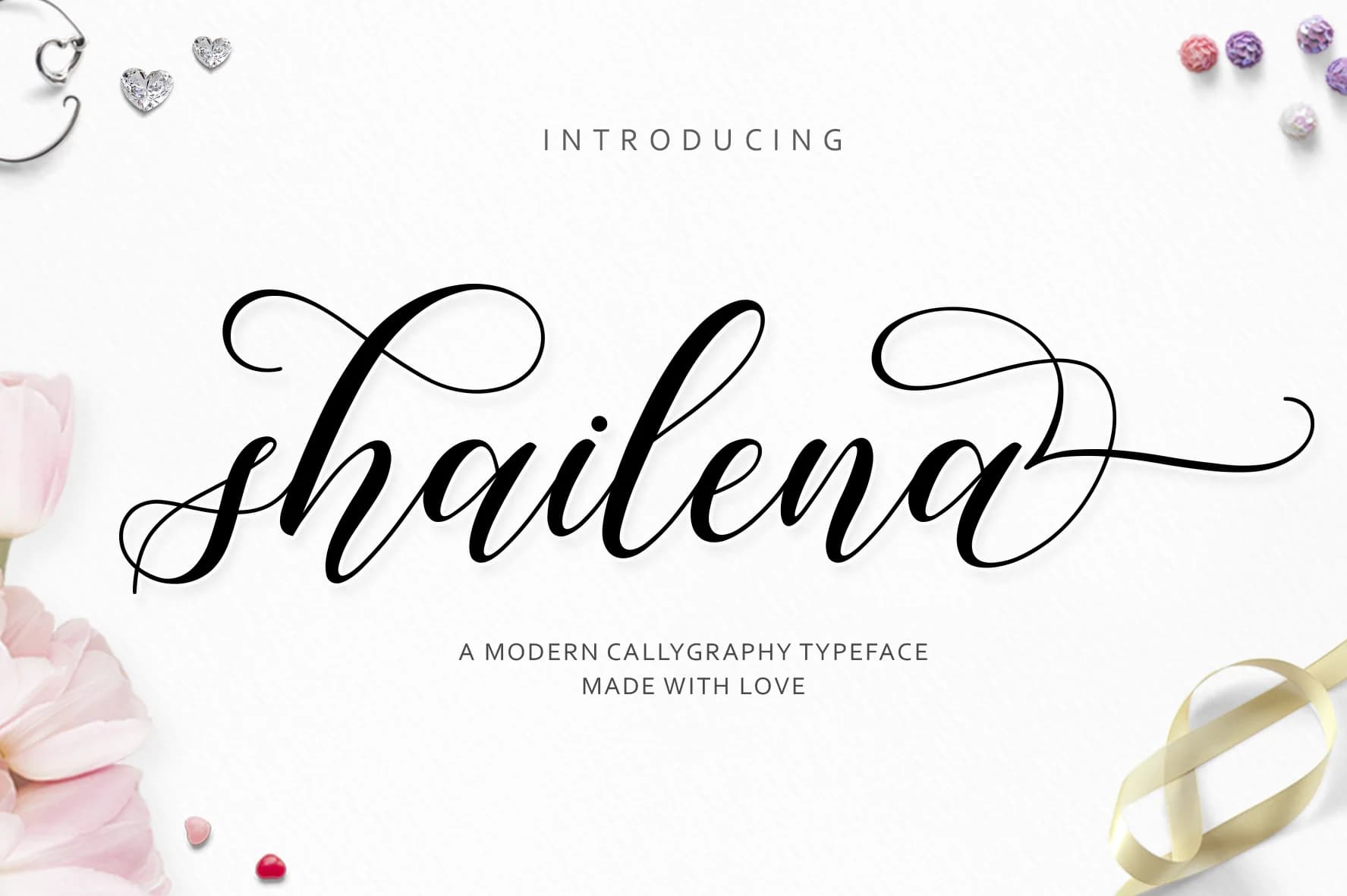
Shailena by Jamalodin is a flowing handwritten script font that brings organic character and warmth to creative projects. With over 600 hand-drawn glyphs, this font delivers versatility and expressive letterforms that feel personal and authentic. The extensive glyph collection ensures you'll have varied options for layering, alternates, and decorative flourishes, giving you flexibility in how you apply the typeface across different design contexts.
This script font excels for wedding invitation suites where elegant penmanship sets an upscale tone and creates emotional connection with recipients. It's equally valuable for boutique product packaging and labels that need personality and charm to stand out on shelves, greeting card designs where warmth and sincerity matter more than corporate polish, and hand-lettered event signage that captures attention through genuine character. The font also works beautifully for personalized gift tags, special occasion menus, and branding applications where an authentic, human touch strengthens the emotional impact.
- Elegant, Flowing, Shailena Script
Shailena Font is a script font that shines as a display or heading face. Pair it with a clean sans-serif or serif font for body text β the contrast creates a clear hierarchy while the two styles stay balanced and easy to read.
Shailena Font